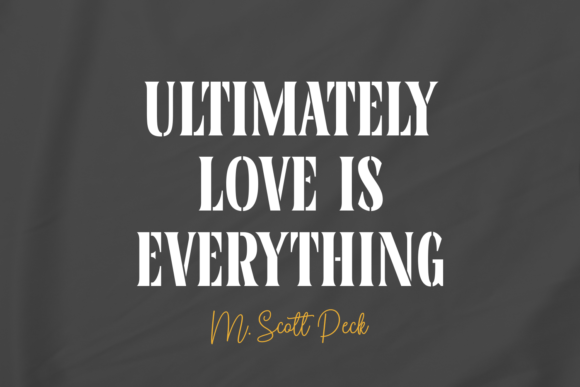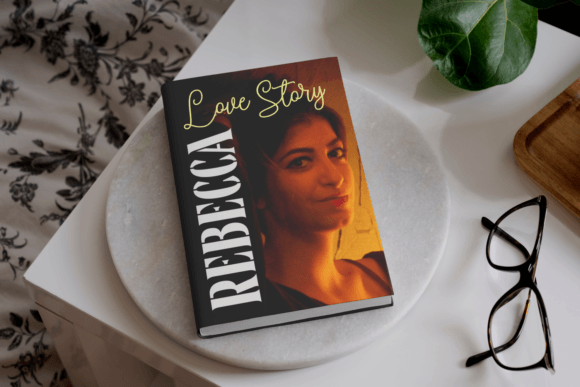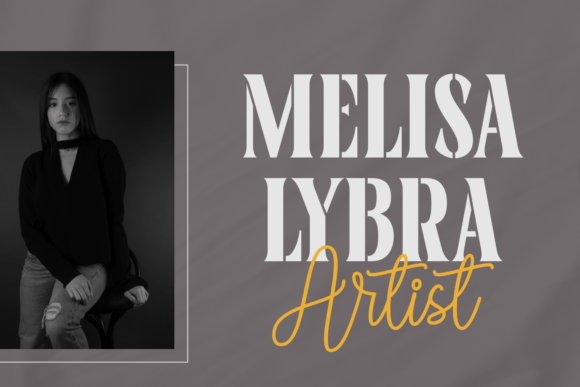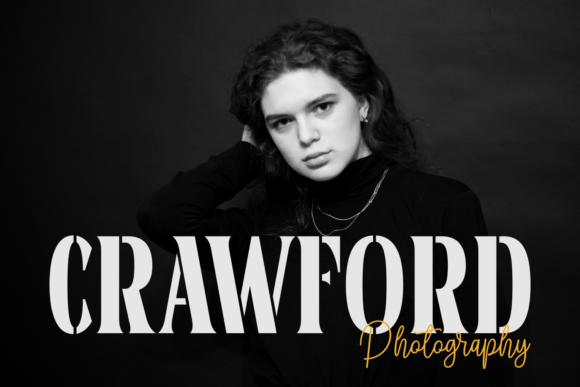
Introduction to Miora Font
Introducing Miora, a remarkable blend of sophistication and adaptability.
As a Serif font, Miora is an attractive choice for branding, creating an iconic image that adheres to the mind Its clean design makes Miora ideal for creating high-end fashion magazine content or stately book covers.
Key Features of Miora Font
Why Choose Miora Font?